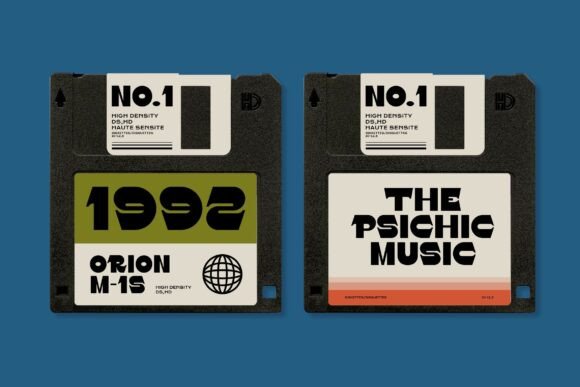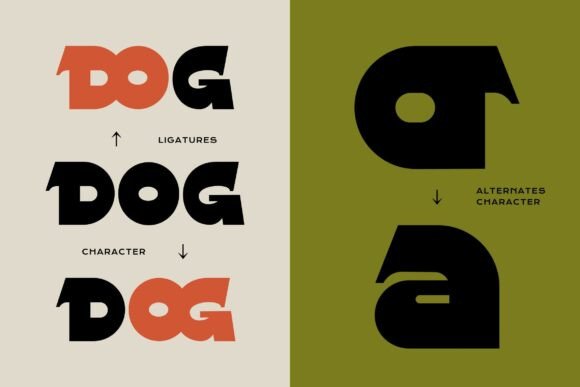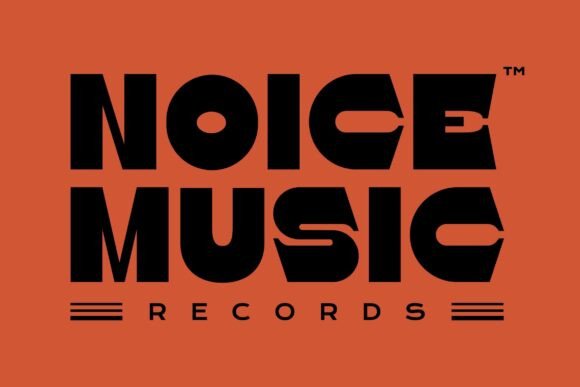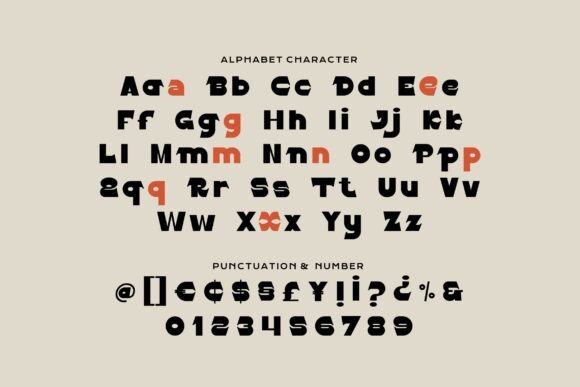
Introduction to Dusie Rick Font
Remember the thrill of stumbling upon a hidden design gem? Maybe it was a vintage font, a quirky illustration, or a unique texture that sparked a creative idea for your next project. For designers, that moment of discovery can be a game-changer. It’s what makes us excited to dive into a new design challenge, to experiment with fresh styles, and to push the boundaries of what’s possible.
That’s exactly what we’re excited to share with you today: Dusie Rick Font, a mid-century modern display font that’s sure to become your new design best friend. With its perfect blend of geometric precision and playful forms, this font is a treasure trove of creative possibilities, just waiting to be unleashed.
Key Features of Dusie Rick Font
- High-Quality Design Resource: Dusie Rick Font is a premium font designed for creative projects, offering a unique and stylish look.
- Transparent Background: This font features a transparent background, making it easy to use on any design without worrying about background clutter.
- High Resolution: Dusie Rick Font is designed at 300 DPI, making it perfect for high-resolution printing and digital designs.
- Unique Characteristics: This font features a unique blend of modern and vintage elements, making it ideal for creative projects that require a distinctive look.
- Perfect for Creative Projects: Dusie Rick Font is an excellent choice for designers, artists, and writers who need a high-quality font for their creative projects.
Honest Review: Dusie Rick Font
As a designer, I’m always on the lookout for high-quality design resources to elevate my creative projects. Recently, I came across the Dusie Rick Font, and I was excited to put it to the test.
- Unique, hand-drawn design
However, I did encounter a few limitations: ⚠️ The font’s limited character set may make it less versatile for certain projects. Additionally, the font’s bold weight may not be suitable for all design contexts.
Overall, I was impressed with the Dusie Rick Font. Its unique design and high-quality rendering make it a valuable addition to any designer’s toolkit. While it may not be perfect, it’s a great option for designers looking for a free, high-quality font to use in their creative projects.
Using Dusie Rick Font in PowerPoint/Word
You can also use Dusie Rick Font in PowerPoint and Word by installing it on your computer and then selecting it from the font menu in the software. This font is perfect for creating presentations and documents with a professional look.
Tips for Getting the Most Out of Dusie Rick Font